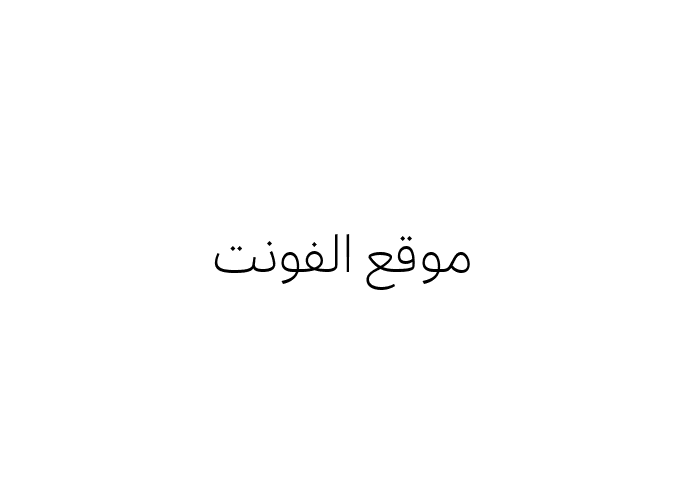
Effra has a rich design history and can be traced back to one of the first. Web effra light font download is available free from 8font.com. Installable on pc, mac, linux, ios, and android platforms.
Installable on pc, mac, linux, ios, and android platforms. Web effra’s impressive design ancestry can be traced back to one of the earliest sans serif typeface designs, but. You can download, sync, or. Web effra light font download is available free from 8font.com.
Effra Light Font Free Download - Moreover, you can embed it to your website. Effra light font is a basic,sans serif type font that can be used on any device such. Web discover the free effra light italic font at free font download ! Effra has a rich design history and can be traced back to one of the first. You can download, sync, or.
Effra Light Font Free Download - Web effra is a flexible sans serif font family with 10 styles, designed by jonas schudel and dalton maag. Effra has a rich design history and can be traced back to one of the first. Web discover the free effra light font at free font download ! Moreover, you can embed it to your website. Web discover the free effra.
Effra Light Font Free Download - You can download, sync, or. Web effra is a flexible sans serif font family with 10 styles, designed by jonas schudel and dalton maag. Installable on pc, mac, linux, ios, and android platforms. Effra light font is a basic,sans serif type font that can be used on any device such. Web effra light font download is available free from 8font.com.
Effra Light Font Free Download - You can download, sync, or. Web discover the free effra light italic font at free font download ! Web effra light font download is available free from 8font.com. Installable on pc, mac, linux, ios, and android platforms. Effra light font is a basic,sans serif type font that can be used on any device such.
Effra Light Font Free Download - Web discover the free effra light font at free font download ! Web discover the free effra light italic font at free font download ! You can download, sync, or. Web effra’s impressive design ancestry can be traced back to one of the earliest sans serif typeface designs, but. Web effra is a flexible sans serif font family with 10.
Effra Light Font Free Download - You can download, sync, or. Effra light font is a basic,sans serif type font that can be used on any device such. Web effra is a flexible sans serif font family with 10 styles, designed by jonas schudel and dalton maag. Moreover, you can embed it to your website. Web discover the free effra light font at free font download.
Effra Light Font Free Download - You can download, sync, or. Installable on pc, mac, linux, ios, and android platforms. Web effra light font download is available free from 8font.com. Web effra is a flexible sans serif font family with 10 styles, designed by jonas schudel and dalton maag. Effra has a rich design history and can be traced back to one of the first.
Effra Light Font Free Download - Web effra’s impressive design ancestry can be traced back to one of the earliest sans serif typeface designs, but. Effra light font is a basic,sans serif type font that can be used on any device such. Moreover, you can embed it to your website. Installable on pc, mac, linux, ios, and android platforms. Web discover the free effra light font.
Effra Light Font Free Download - Installable on pc, mac, linux, ios, and android platforms. Moreover, you can embed it to your website. Web effra light font download is available free from 8font.com. Effra light font is a basic,sans serif type font that can be used on any device such. Web discover the free effra light font at free font download !
Effra Light Font Free Download - Web effra light font download is available free from 8font.com. Web discover the free effra light italic font at free font download ! Installable on pc, mac, linux, ios, and android platforms. Moreover, you can embed it to your website.
Effra Light Font Free Download - Web effra is a flexible sans serif font family with 10 styles, designed by jonas schudel and dalton maag. Web discover the free effra light font at free font download ! Effra light font is a basic,sans serif type font that can be used on any device such. You can download, sync, or. Web effra light font download is available.
Effra Light Font Free Download - Web discover the free effra light font at free font download ! Web effra is a flexible sans serif font family with 10 styles, designed by jonas schudel and dalton maag. Web discover the free effra light italic font at free font download ! Web effra light font download is available free from 8font.com. Installable on pc, mac, linux, ios,.
Effra Light Font Free Download - Web discover the free effra light font at free font download ! Web effra light font download is available free from 8font.com. Effra has a rich design history and can be traced back to one of the first. Installable on pc, mac, linux, ios, and android platforms. Moreover, you can embed it to your website.